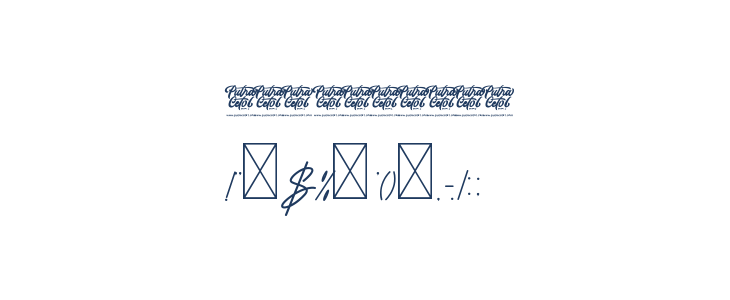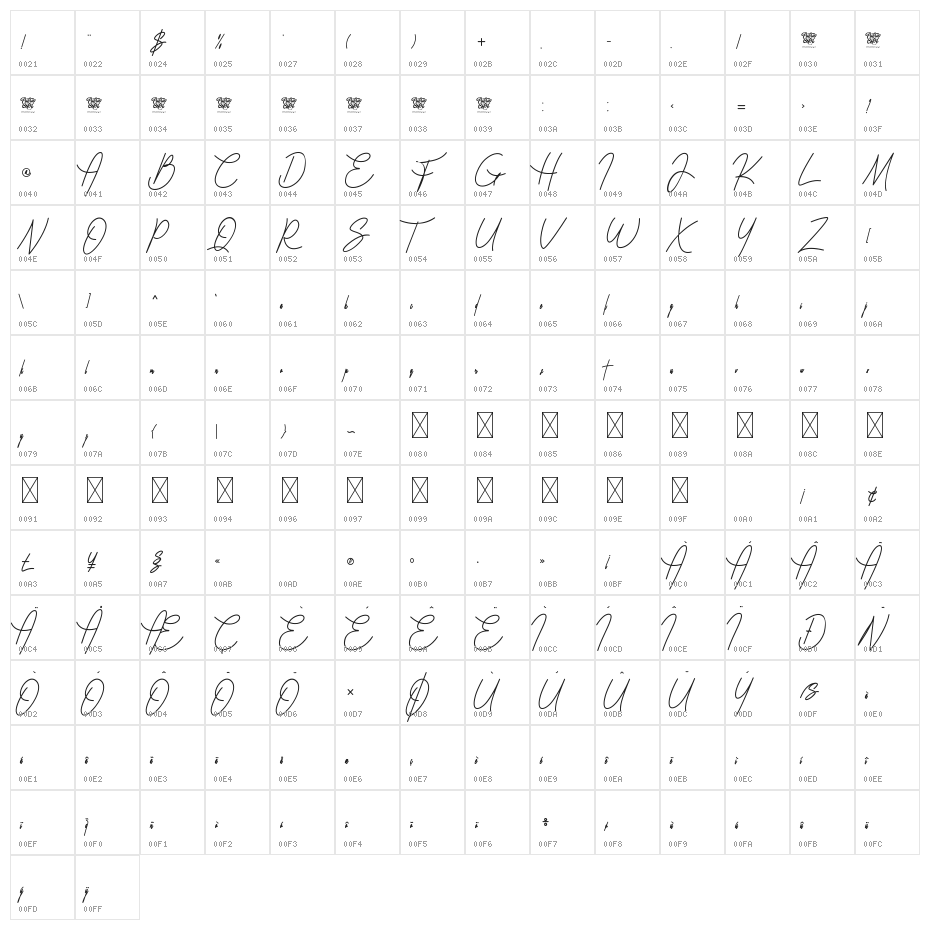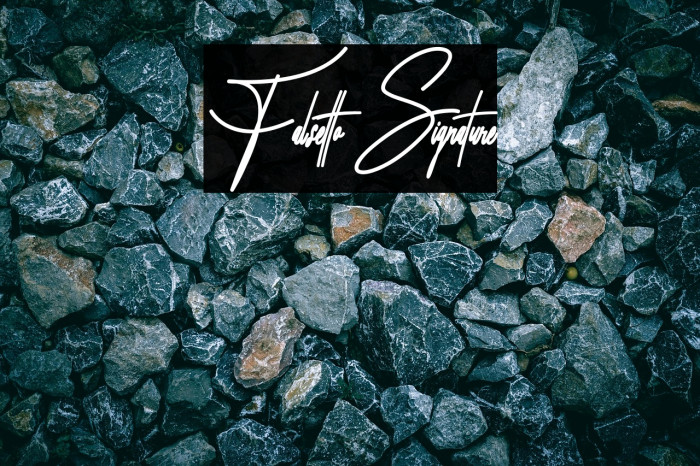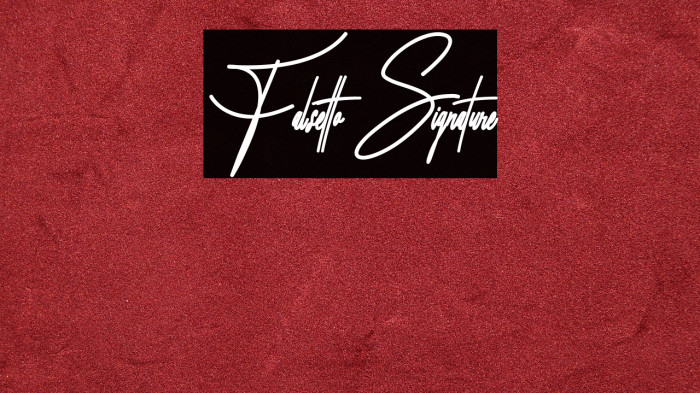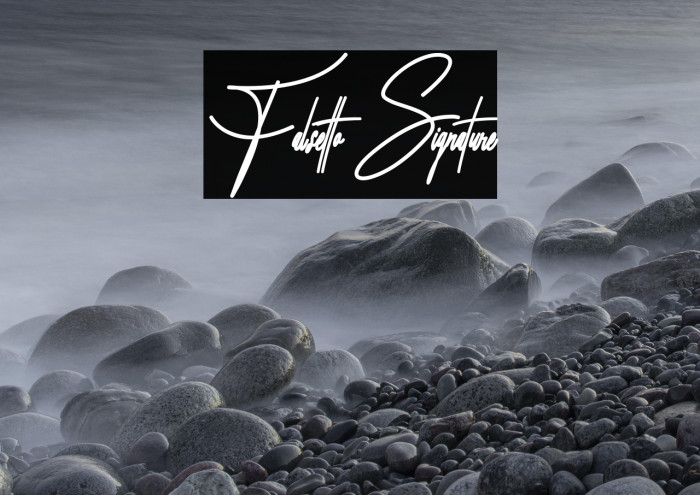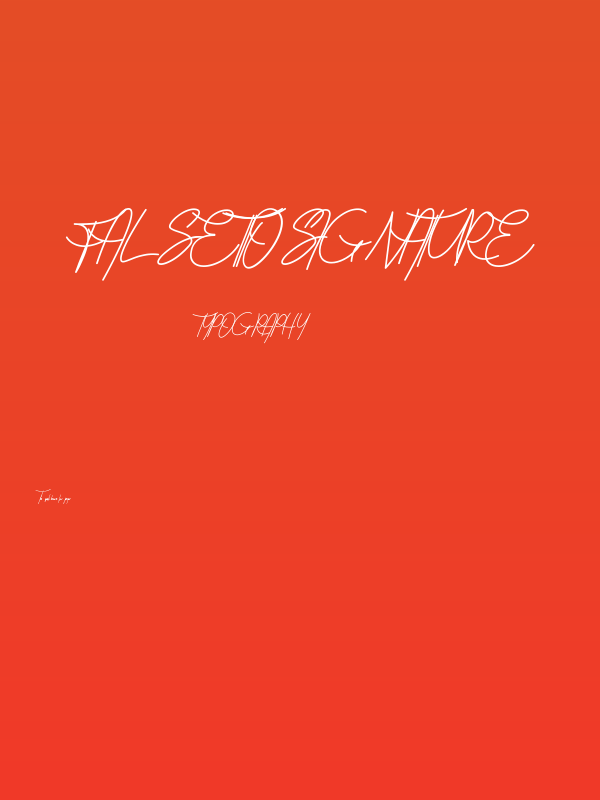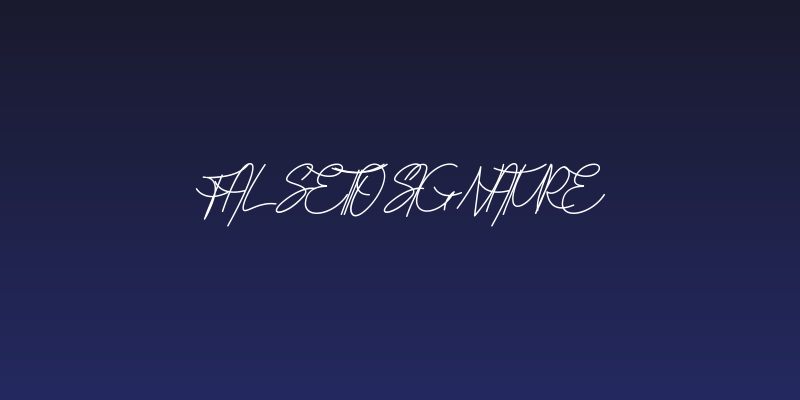
Falsetto Signature Font
Falsetto Signature Description
This font exudes a sophisticated and elegant style, characterized by its flowing, cursive script that mimics the fluidity of a handwritten signature. The letters are elongated and connected, creating a seamless and continuous line that enhances its graceful appearance. The uppercase letters are particularly striking, with their tall, slender forms and dramatic flourishes. The lowercase letters maintain the same fluidity, with a slightly more compact form. The numerals and special characters are consistent with the overall style, adding a touch of refinement. This font is perfect for projects that require a personal, artistic touch, such as invitations, branding, and logos.
| Proposed Projects | Ideal for invitations, branding, logos, and any project requiring a personal, artistic touch. |